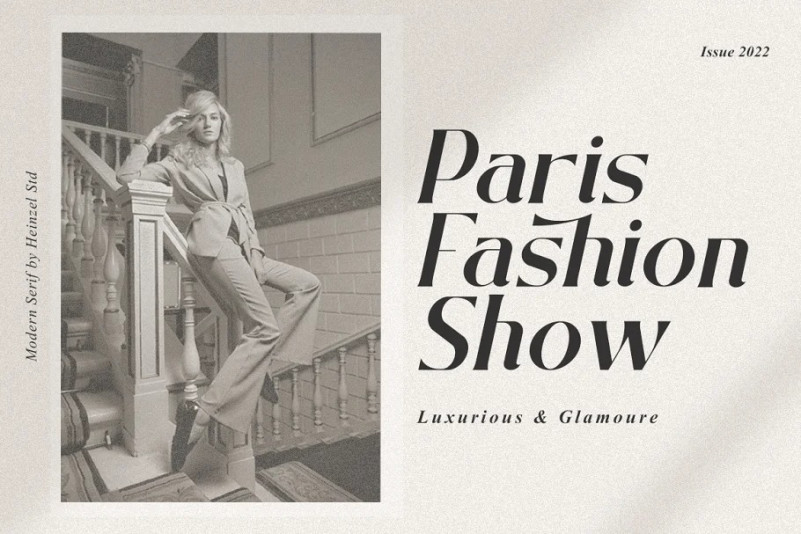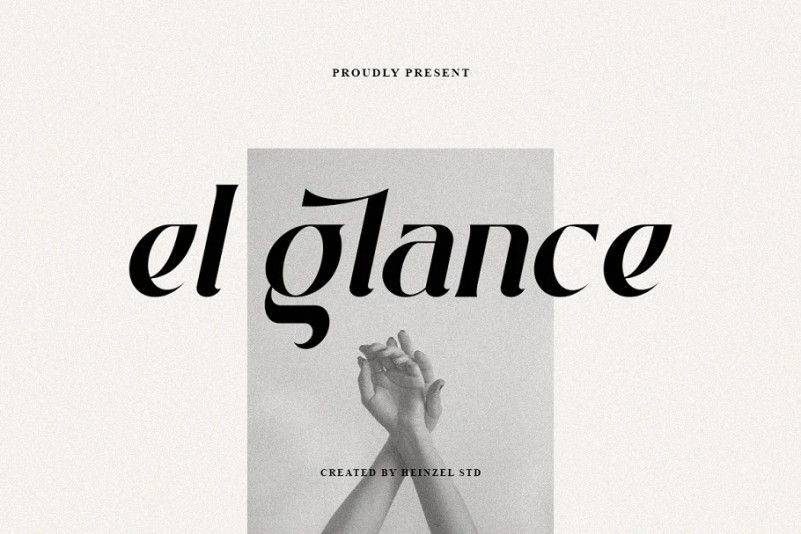
El Glance Font
Proudly present El Glance Serif Font, is an elegant and modern serif font. Fall for its ravishing style and use it to create gorgeous wedding invitations, logos, branding, headline, beautiful stationary art, eye-catching social media posts, website and much more! This font is PUA encoded which means you can access all of the amazing glyphs with ease!